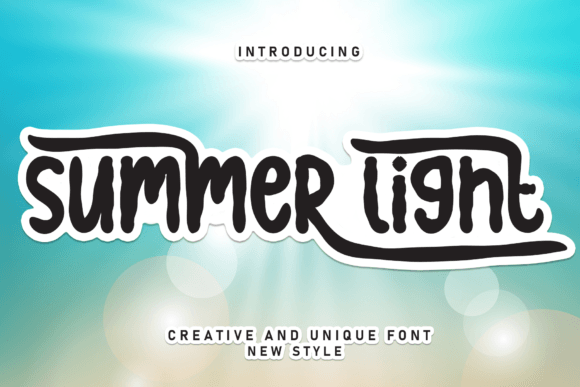
Welcome to the realm of typography, where the stroke of a pen becomes a dance of enchantment. With the Summer Light font, you're invited to an enchanting odyssey of aesthetics, where each letter is a brushstroke of elegance and charm. Crafted by the visionary William Jhordy, this script font is an ethereal blend of modernism and whimsy, ready to transform your creative projects into a spectacle of beauty.
Summer Light is more than just a font; it's a portal to a world of exquisite designs. Its playful and breezy strokes invoke the warmth of a summer breeze, the delicate beauty of a butterfly's wings, and the whimsical charm of a fairy tale. Each glyph is a stroke of genius, a dance of shapes that weaves its way into your designs, leaving a trail of enchantment in its wake.
If you're a web designer seeking a touch of magic, or an artist yearning to infuse your creations with a sense of wonder, Summer Light is your muse. Its delicate strokes will turn your website into an ethereal experience, captivating your audience with its undeniable allure. Create logos that speak of enchantment, posters that transport viewers to a world of dreams, and social media graphics that dance with a rhythmic grace that leaves an indelible mark.
Step into the realm of captivating typography with Summer Light. Let your imagination soar on the wings of its delightful characters, and watch as your creative aspirations take flight. With this spectacular font, your designs will transcend the ordinary and become a symphony of visual delight.